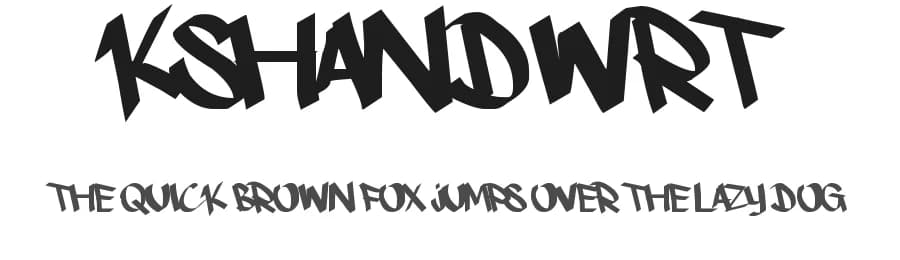
About Kshandwrt Font
Kshandwrt is a script & handwritten font designed by Pedro Moreira. It includes 70 glyphs, a regular weight, TTF (TrueType) format, and 104 languages. Kshandwrt is free to download; check the license details on this page before commercial use. Script & handwritten fonts like Kshandwrt work best for wedding invitations, greeting cards, signatures, and elegant branding.
Kshandwrt Font is a script font that shines as a display or heading face. Pair it with a clean sans-serif or serif font for body text β the contrast creates a clear hierarchy while the two styles stay balanced and easy to read.
Kshandwrt Font is a script handwritten typeface by Pedro Moreira, ideal for logos, invitations, branding, and creative projects.